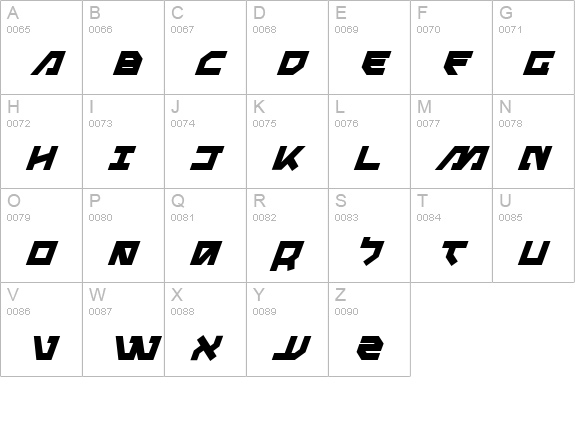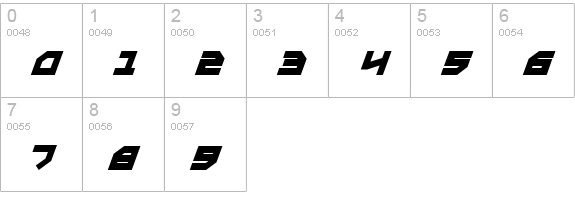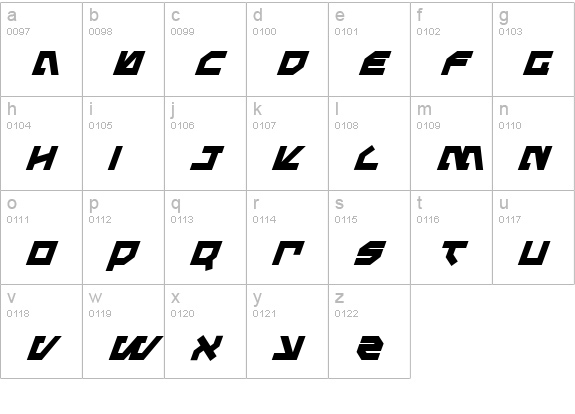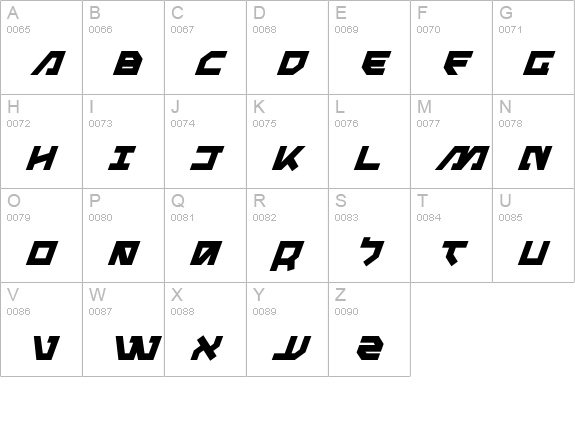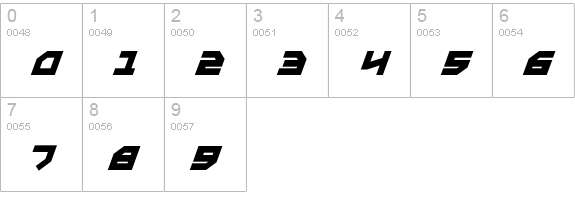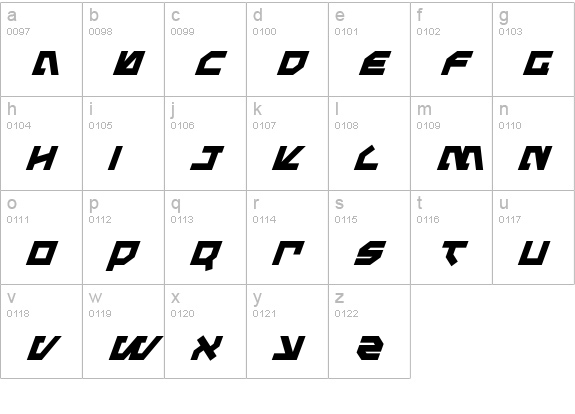
Metal Storm Bold Italic is a strong, high-contrast, italic variant in the Metal typeface family \xE2\x80\x94 well suited to headlines, attention-grabbing titles, and strong calls-to-action.
Metal Storm Bold Italic is a striking and powerful font that exudes strength and confidence. With its bold letterforms and italicized style, this font is perfect for making a bold statement in any design project. The sharp edges and industrial feel of Metal Storm Bold Italic give it a modern and edgy look that is sure to grab attention. What makes Metal Storm Bold Italic even more appealing is that it is available for free download at FontsMarket.com. This means that you can easily add this unique font to your collection without any cost. Whether you are working on a poster, logo, or website, Metal Storm Bold Italic is a versatile font that will add a touch of boldness to your designs. Download it now and unleash the power of Metal Storm Bold Italic in your next project.